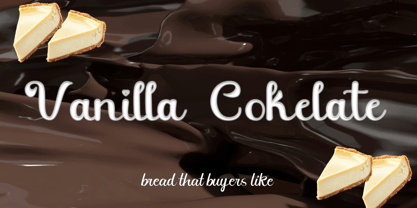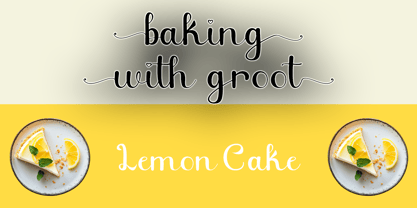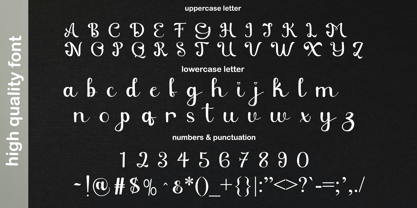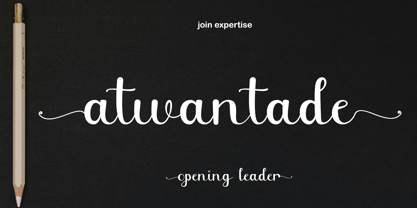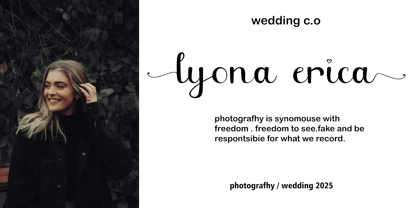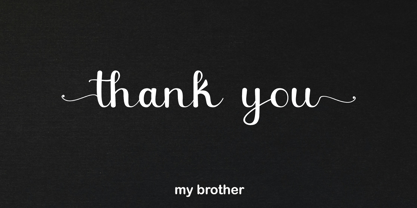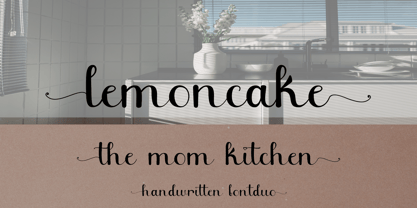
Fanila cokelate
by Mars Creative
The Fanila cokelate Font Family was designed by Al Muzammil and published by Mars Creative. Fanila cokelate contains 1 styles. More about this family
The font in this image has a modern script style with a playful and sweet touch. Its letters are rounded, smooth, and feature varying thickness, giving it a soft and inviting look. Small details, such as the heart-shaped dot on the letter “i,” add a romantic and friendly feel. This font is perfect for designs related to desserts, pastries, or sweet beverages, as it conveys a warm, welcoming, and delightful impression.
Designers: Al Muzammil
Foundry: Mars Creative